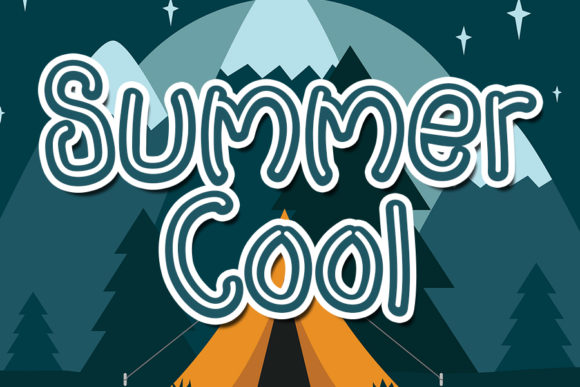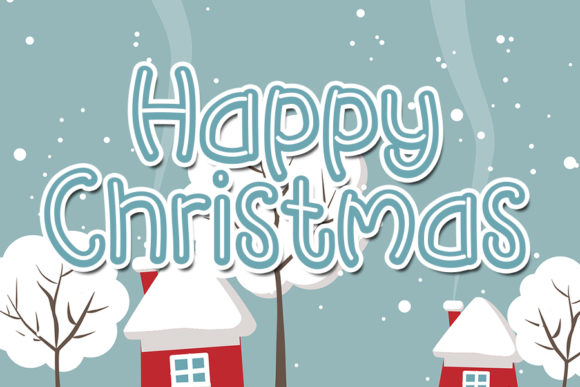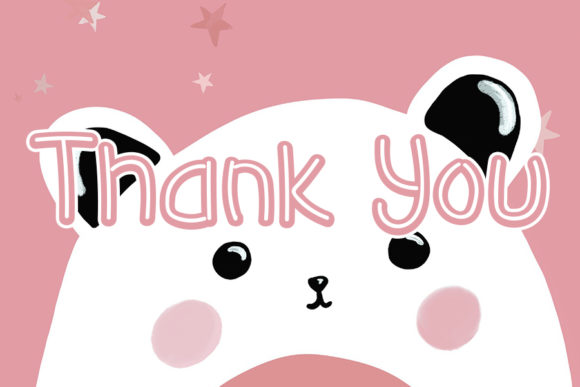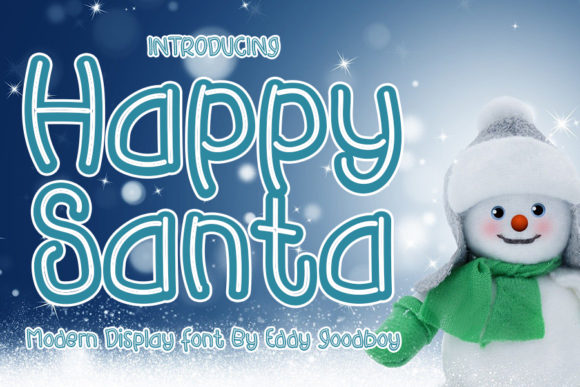
Happy Santa Font: The Perfect Addition to Your Playful Designs
Are you looking for a font that can add a touch of whimsy and fun to your designs? Look no further than the Happy Santa font. This beautiful and attractive display font is perfect for a variety of playful designs, from holiday cards and decorations to children’s party invitations and craft projects.
What Makes Happy Santa Font So Special?
Happy Santa font is a bit quirky and childish, making it ideal for designs that require a playful and fun touch. The font features a unique and eye-catching design, with bold lines and a festive feel that’s perfect for the holiday season. Whether you’re a designer, crafter, or DIY enthusiast, Happy Santa font is sure to bring a smile to your face and inspire your creativity.
Uses for Happy Santa Font
Happy Santa font is incredibly versatile and can be used for a wide range of projects, including:
- Children’s party decorations and invitations
- Craft projects, such as handmade cards and gift tags
- Website headers and banners
Why Designers and Crafters Love Happy Santa Font
Designers and crafters love Happy Santa font for its unique and playful design. The font is easy to read and use, making it perfect for a variety of projects. Additionally, the font’s quirky and childish feel makes it ideal for designs that require a fun and whimsical touch.
Tips for Using Happy Santa Font
Here are a few tips for using Happy Santa font in your designs:
- Use it sparingly: Happy Santa font is a bold and eye-catching font, so it’s best to use it sparingly to avoid overwhelming your design.
- Pair it with complementary fonts: Happy Santa font pairs well with a variety of fonts, including serif and sans-serif fonts.
- Experiment with colors: Happy Santa font looks great in a variety of colors, including bright and bold colors.
Happy Santa font is a beautiful and attractive display font that’s perfect for a variety of playful designs. Its quirky and childish feel makes it ideal for holiday cards, children’s party invitations, craft projects, and more. Whether you’re a designer, crafter, or DIY enthusiast, Happy Santa font is sure to bring a touch of fun and whimsy to your designs.
Get Creative with Happy Santa Font